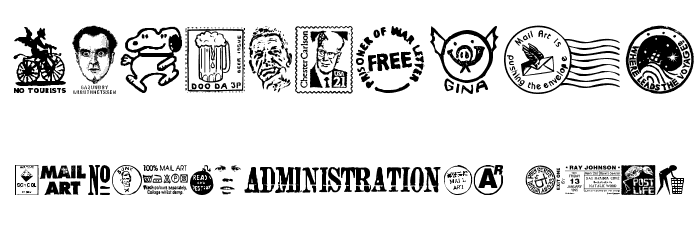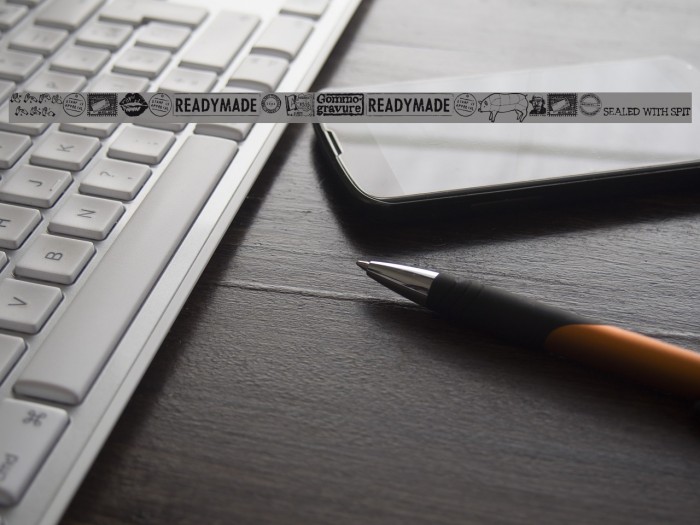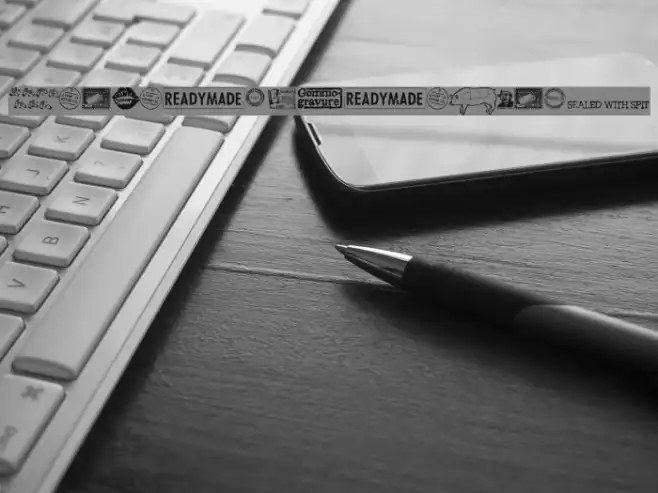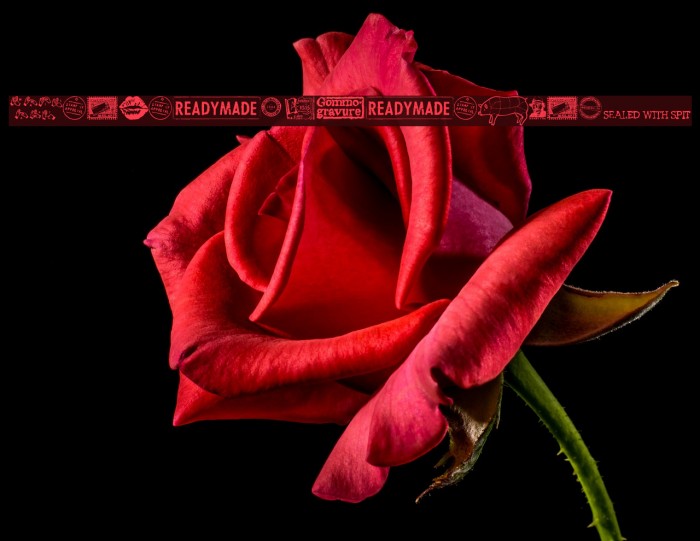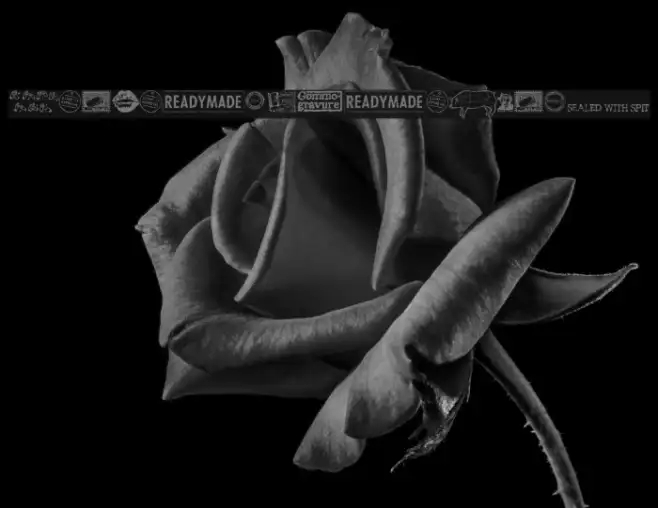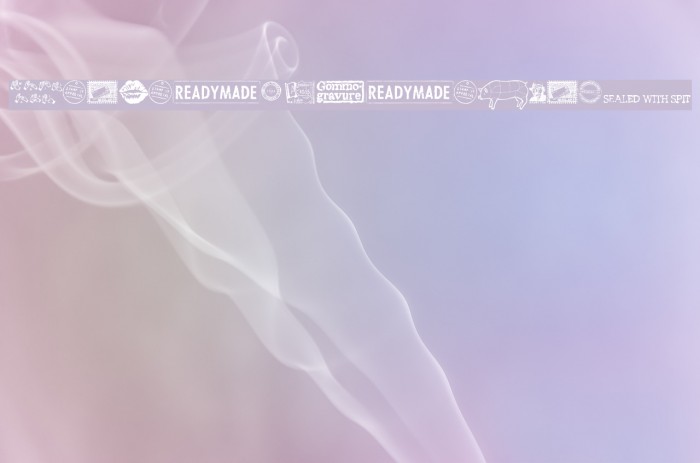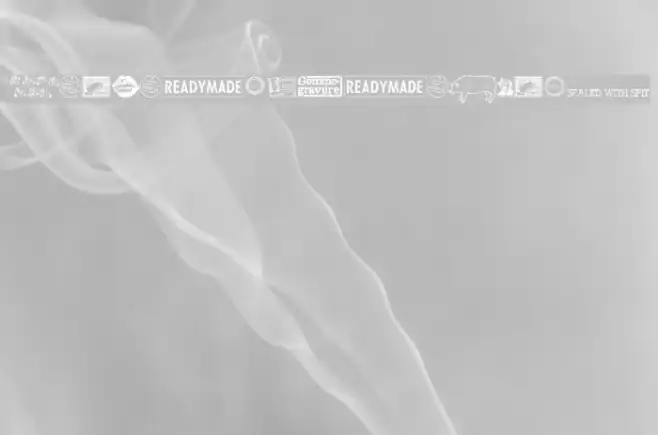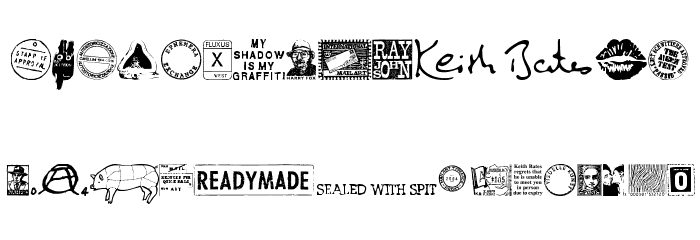
MailartGraphics Font
MailartGraphics Description
A highly eclectic and decorative collection of stamp-like graphics, featuring a mix of bold serif, sans-serif, typewriter, and handwritten styles, with playful and experimental letterforms, variable weights, and a collage of visual motifs reminiscent of mail art and Dadaist aesthetics.
| Overall Style | Decorative, Eclectic, Vintage, Dadaist, Playful |
| Use Case | Logos, Posters, Collage, Art Projects, Headlines |
| Proposed Projects | Mail art projects, zines, posters, collage art, experimental graphic design, themed invitations. |